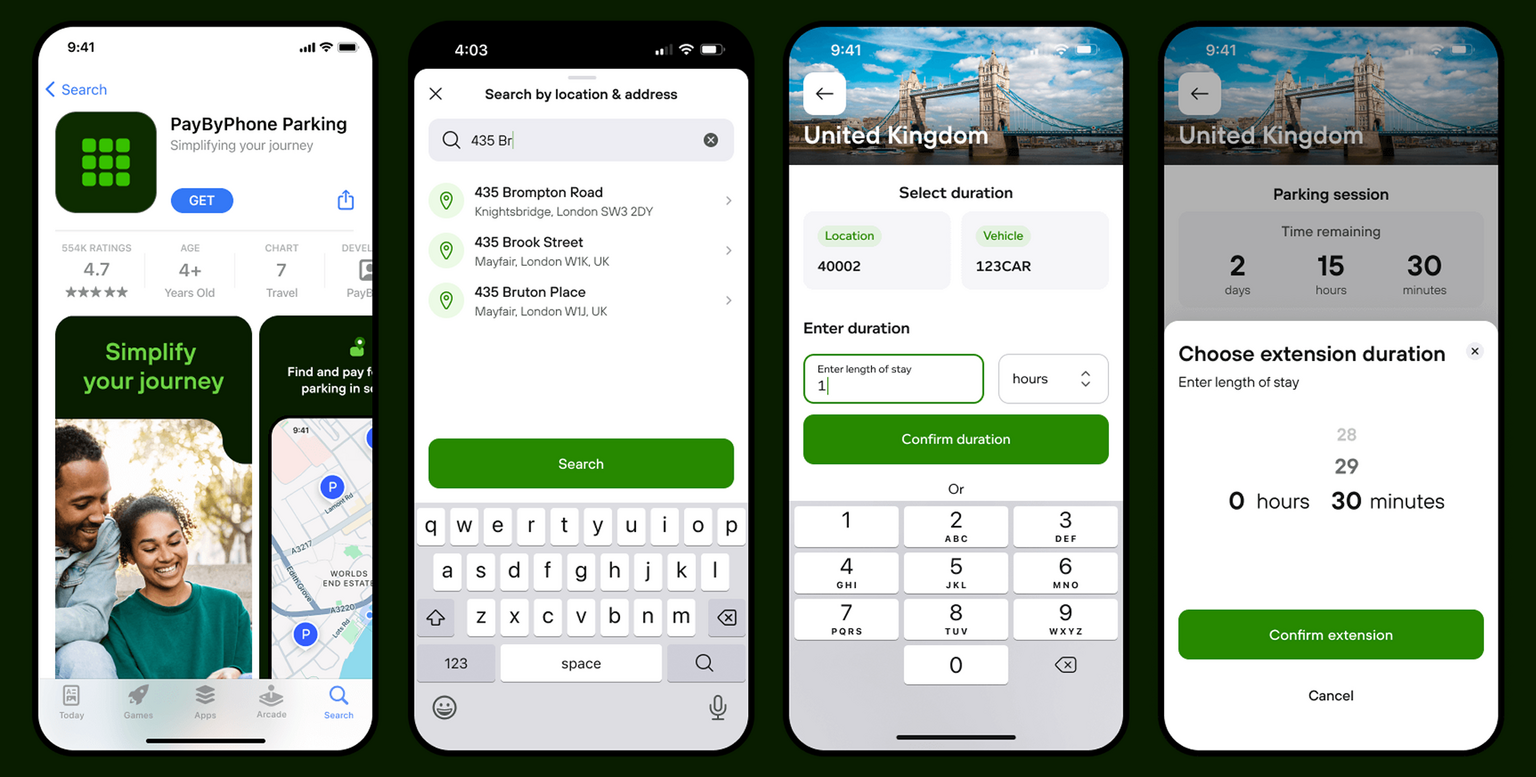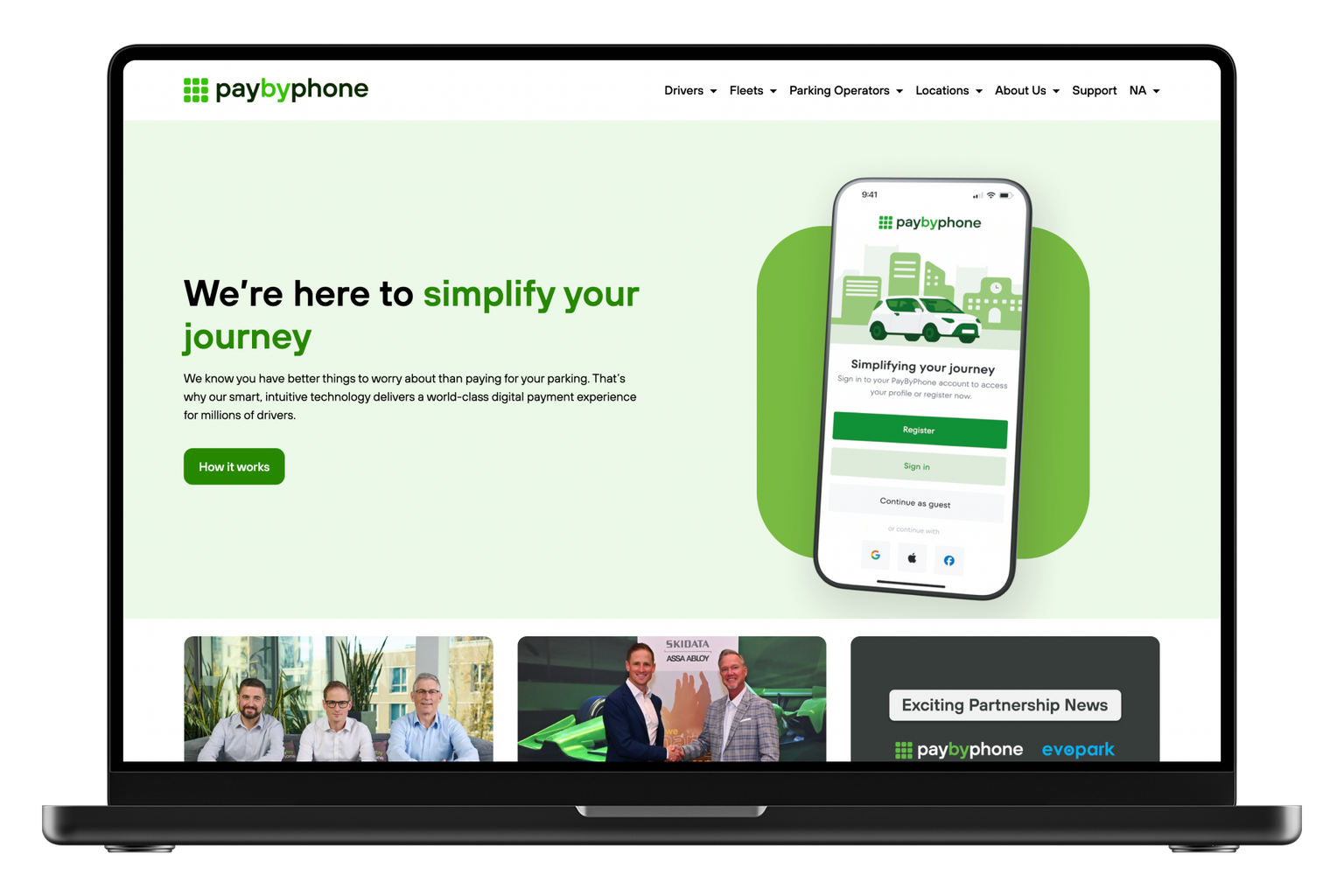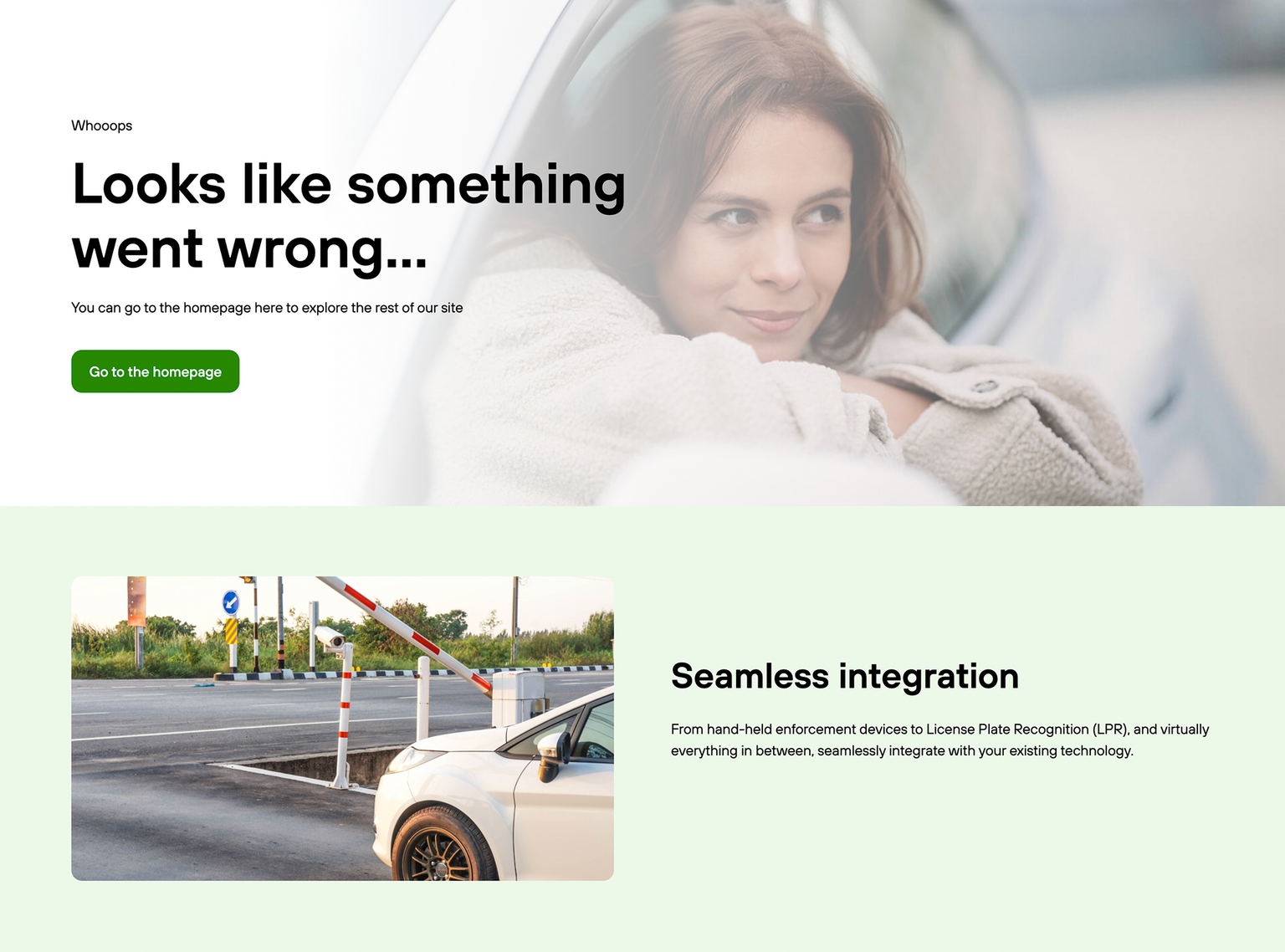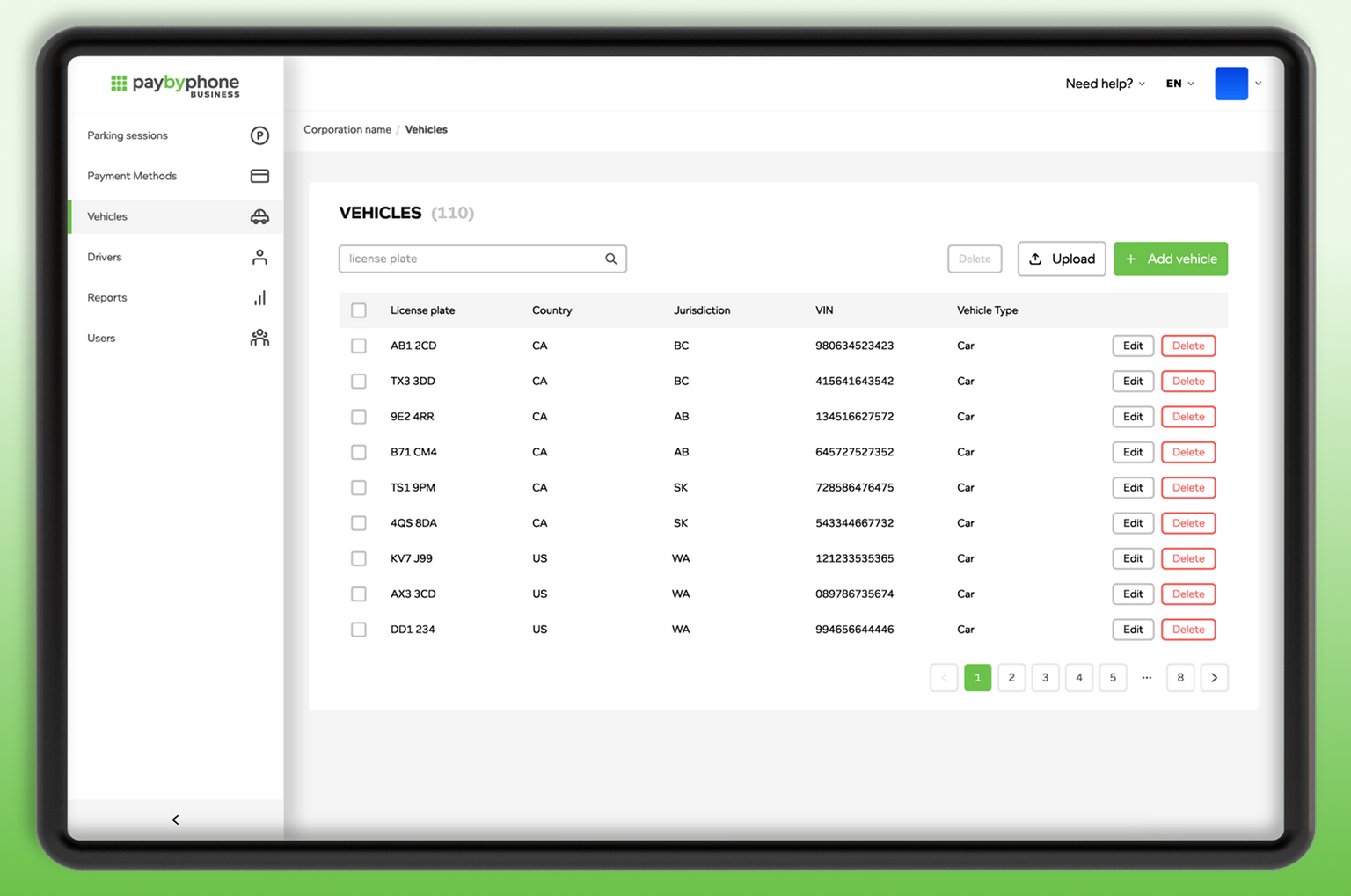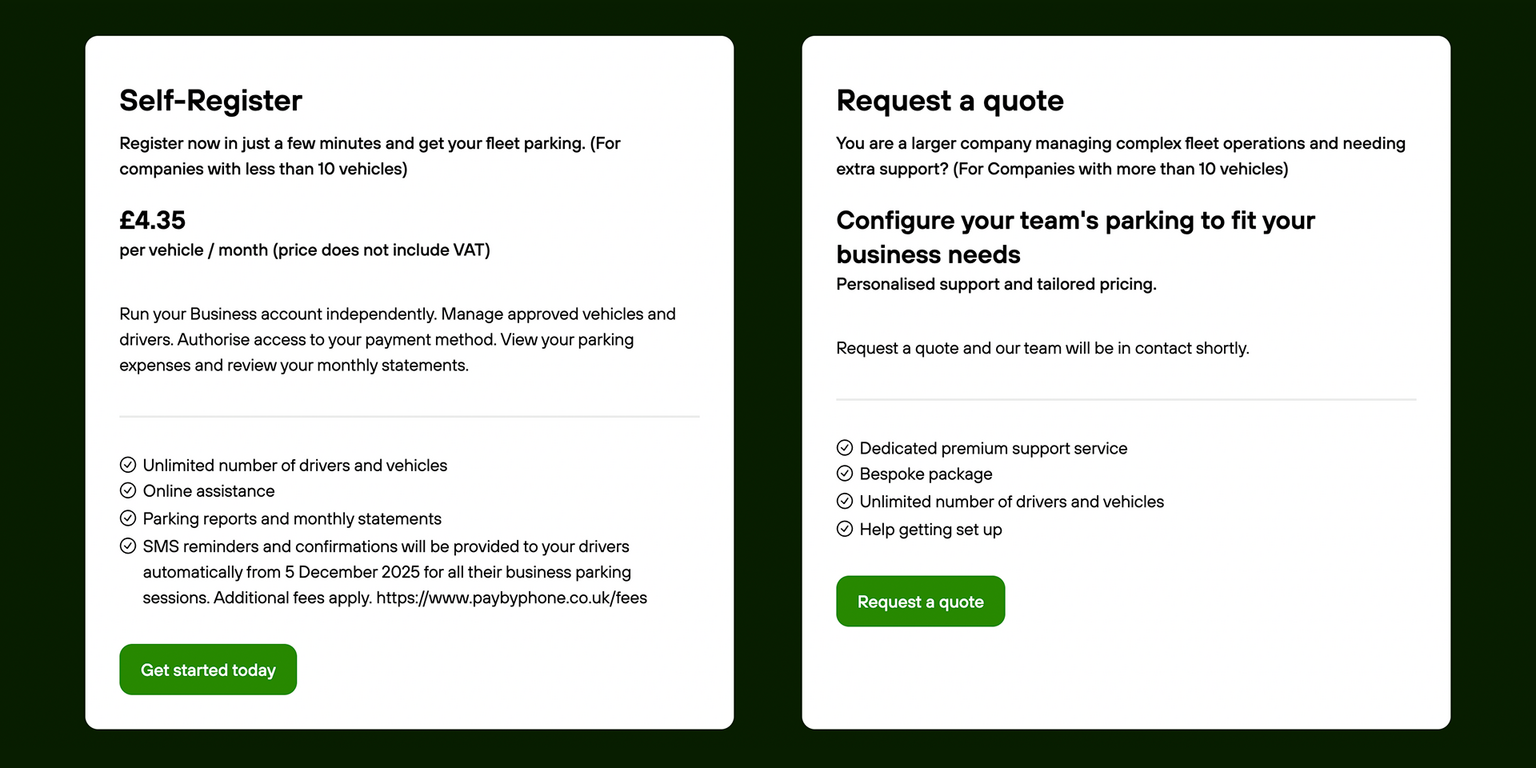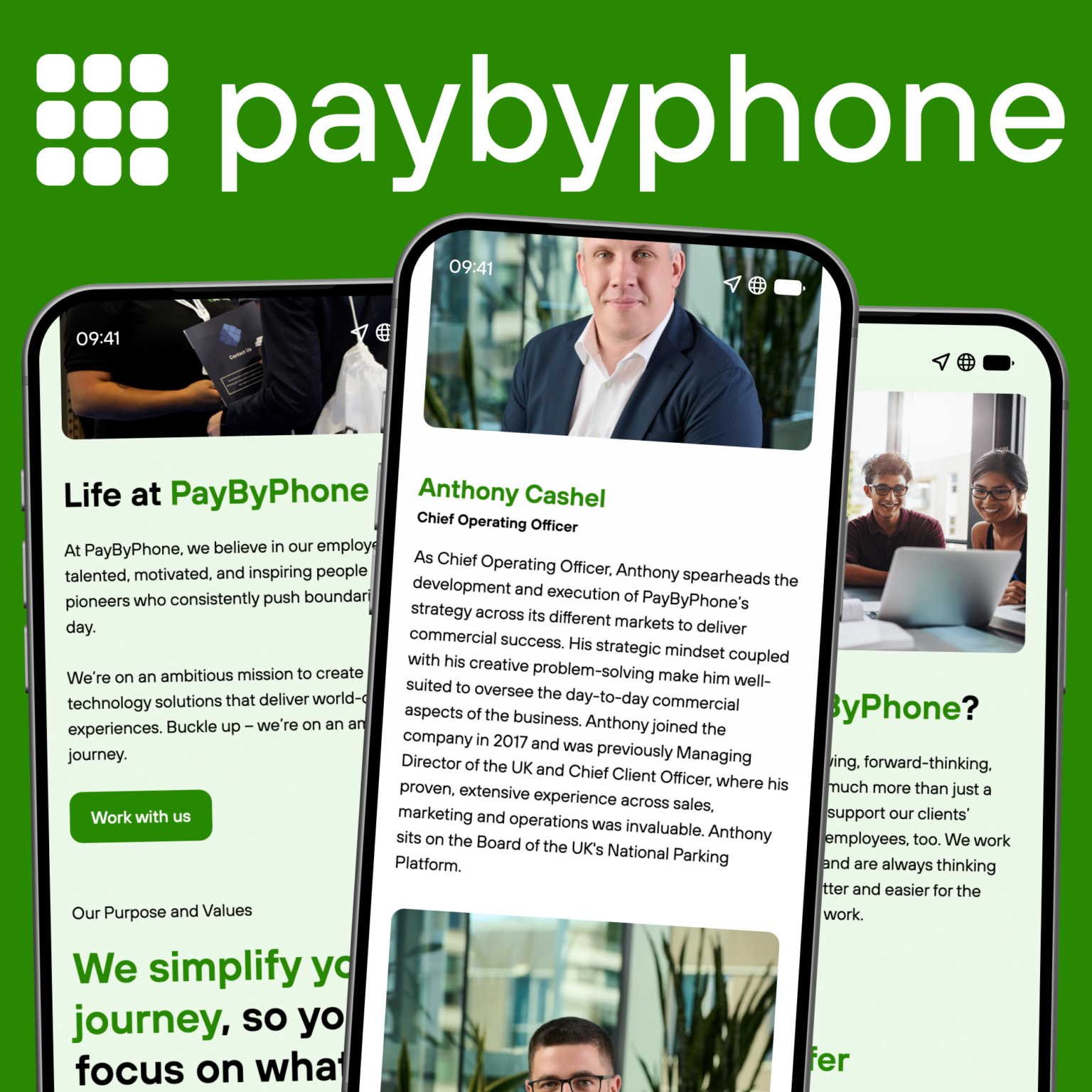
TT Hoves Pro has become the corporate font for PayByPhone.
PayByPhone is an international digital service that helps drivers pay for parking via a mobile app without the need for parking meters or cash. TT Hoves Pro maintains a consistent style across different languages and formats, ensuring the brand looks equally confident across all mediums.